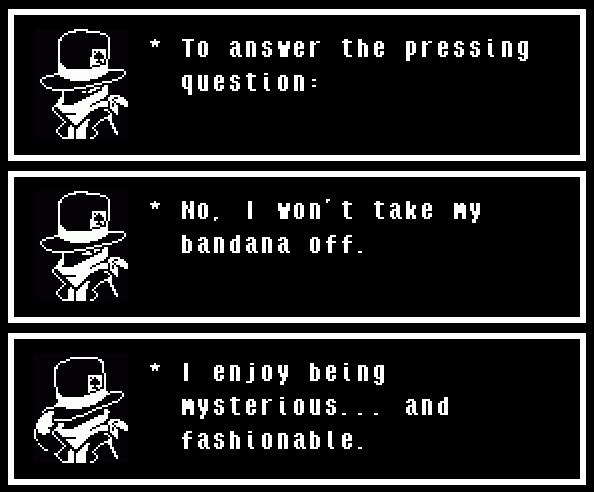
Very vaguely inspired by fonts like Impact and Haettenschweiler
(This font's name (or rather Ace's name) is the reason all four Feisty Four members have the F4 prefix, for some ODD reason FontStruct has a 4 character minimum font name length)